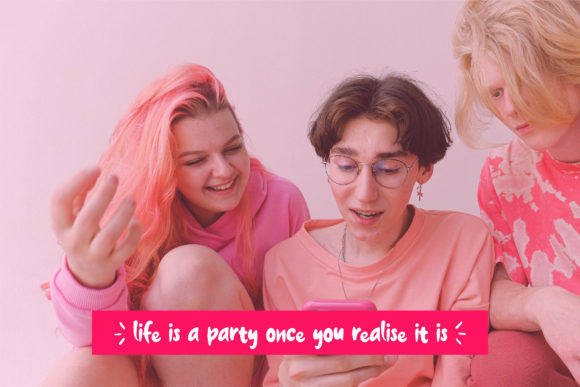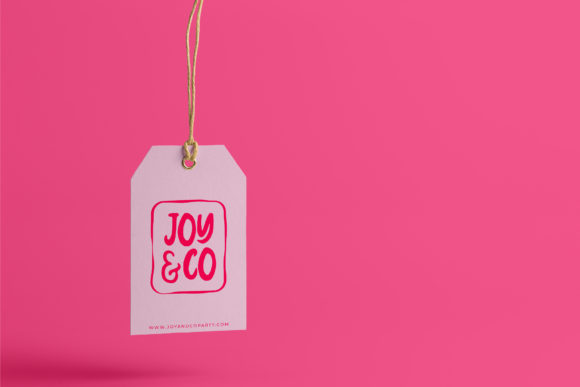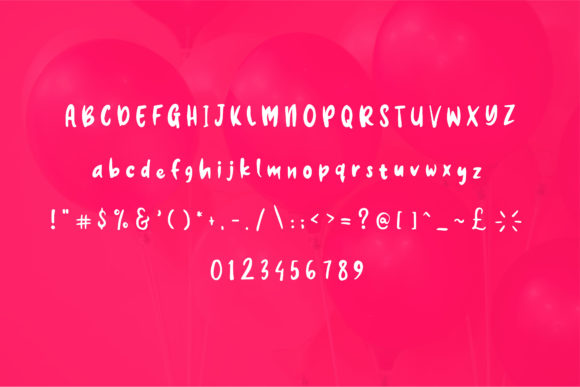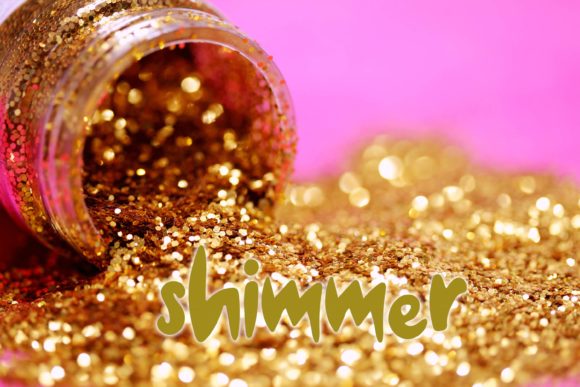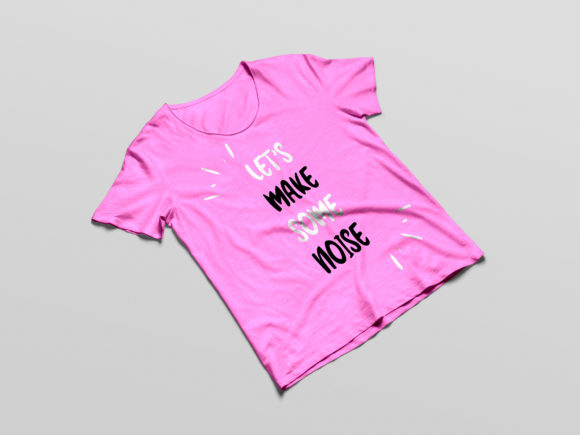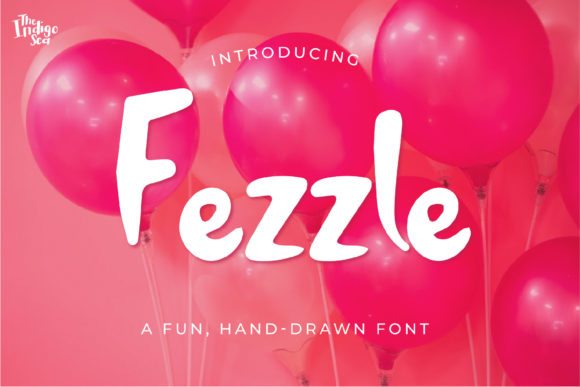
Introducing Fezzle Font: The Ultimate Choice for Fun and Playful Designs
Are you a designer or crafter looking for a font that can add a touch of joy and playfulness to your creations? Look no further than Fezzle Font! This fun and adaptable handwritten font is perfect for a wide range of design projects, from cartoon-related designs and children’s games to quotes, titles, brand names, book covers, posters, and more.
What Makes Fezzle Font So Special?
Fezzle Font is a unique and versatile font that is designed to bring a smile to your face. Its playful and whimsical style makes it perfect for designs that require a touch of fun and personality. Whether you’re creating a children’s book, a cartoon, or a poster, Fezzle Font is sure to add a dash of excitement and energy to your project.
Key Features of Fezzle Font
- Fun and playful style: Fezzle Font has a unique and playful style that is sure to capture the attention of your audience.
- Adaptable: This font is highly adaptable and can be used for a wide range of design projects, from digital designs to print materials.
- Handwritten: Fezzle Font has a beautiful handwritten style that gives it a personal and authentic feel.
- Easy to read: Despite its playful style, Fezzle Font is easy to read and understand, making it perfect for designs that require a clear and concise message.
Use Cases for Fezzle Font
Fezzle Font is a versatile font that can be used for a wide range of design projects, including:
- Cartoon-related designs: Fezzle Font is perfect for cartoon-related designs, such as character names, titles, and dialogue.
- Children’s games: This font is great for children’s games, such as puzzles, quizzes, and activity sheets.
- Quotes and titles: Fezzle Font is perfect for creating eye-catching quotes and titles that require a touch of personality.
- Brand names: This font can be used to create unique and memorable brand names that stand out from the crowd.
- Book covers: Fezzle Font is great for book covers, especially for children’s books, comics, and graphic novels.
- Posters: This font is perfect for creating eye-catching posters that require a touch of fun and personality.
Why Designers and Crafters Love Fezzle Font
Designers and crafters love Fezzle Font for its unique and playful style, which adds a touch of joy and personality to their designs. Here are some reasons why:
- Unique style: Fezzle Font has a unique style that sets it apart from other fonts.
- High-quality: Fezzle Font is a high-quality font that is designed to produce clear and crisp results.
Tips for Using Fezzle Font
Here are some tips for using Fezzle Font:
- Use it sparingly: Fezzle Font is a bold and playful font, so use it sparingly to avoid overwhelming your design.
- Pair it with other fonts: Fezzle Font can be paired with other fonts to create a unique and interesting contrast.
- Experiment with colors: This font looks great in a variety of colors, so experiment with different colors to find the one that works best for your design.
In conclusion, Fezzle Font is a fun and adaptable handwritten font that is perfect for designers and crafters looking to add a touch of joy and personality to their designs. With its unique and playful style, Fezzle Font is sure to capture the attention of your audience and leave a lasting impression. So why wait? Download Fezzle Font today and start creating fun and playful designs that bring a smile to your face!